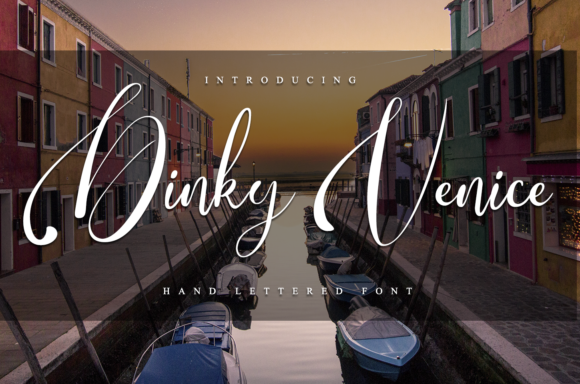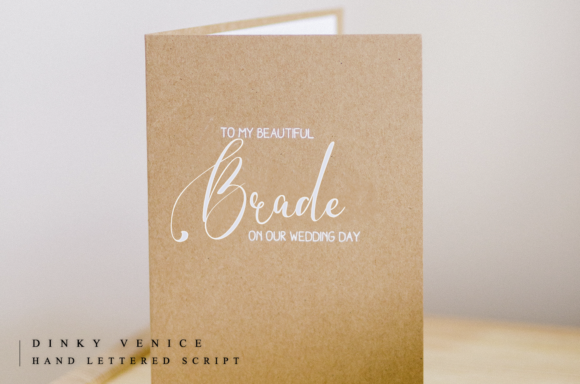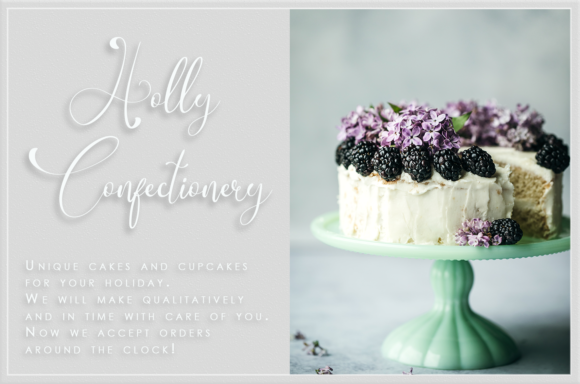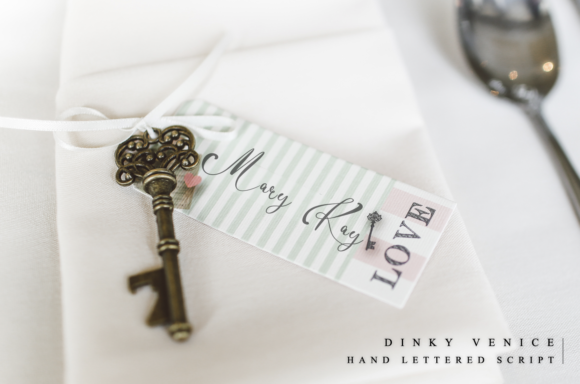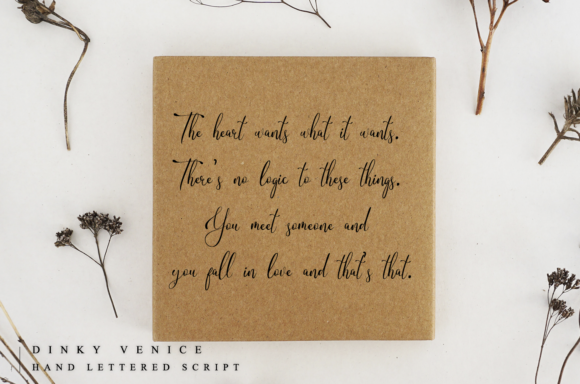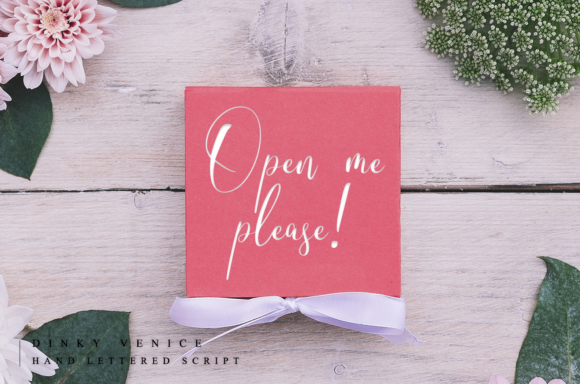
Dinky Venice Font
About Dinky Venice Font
Dinky Venice is the perfect font for setting a romantic and calm mood and inspiring emotions. Fall in love with this unique script!